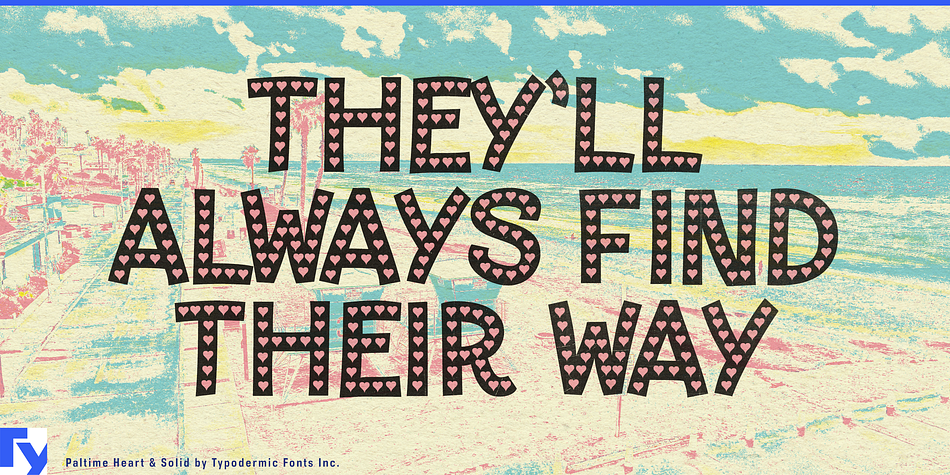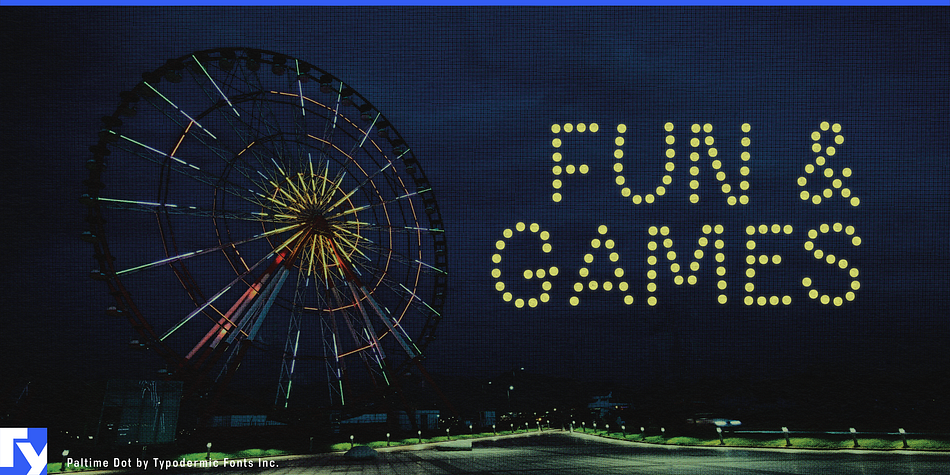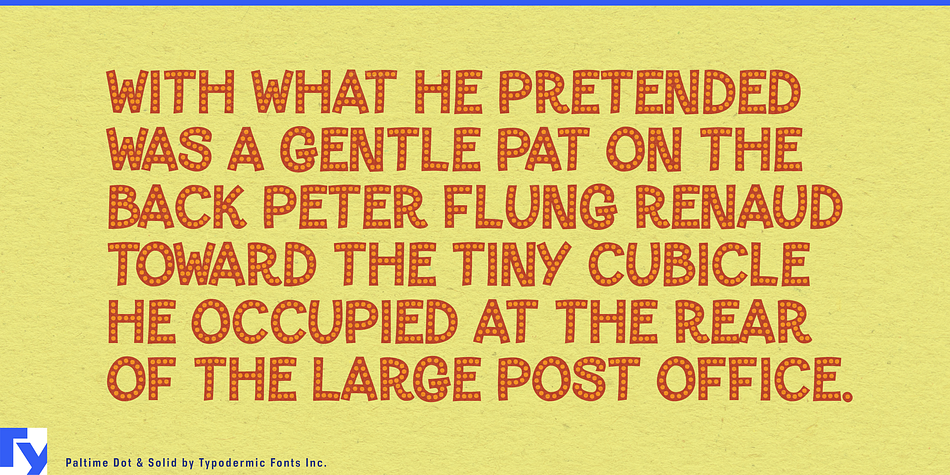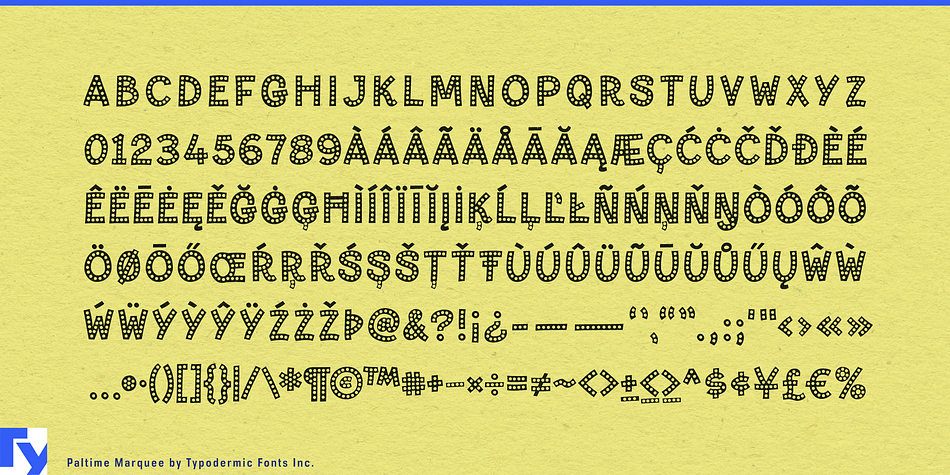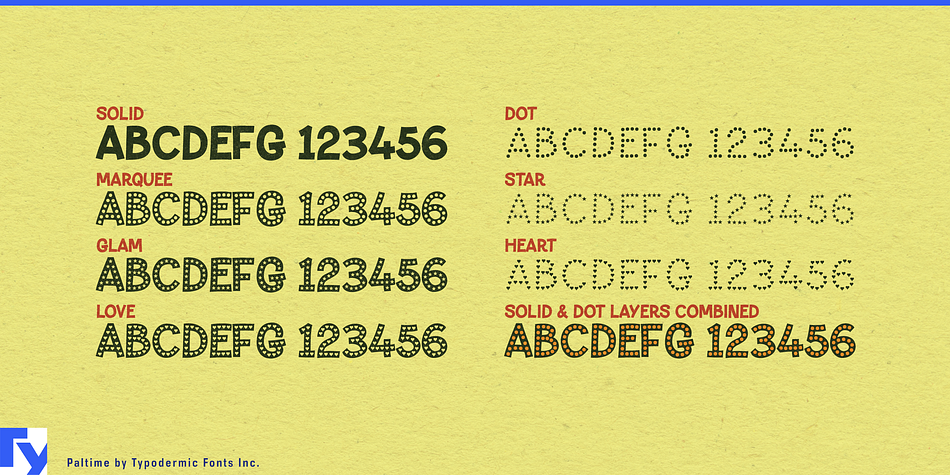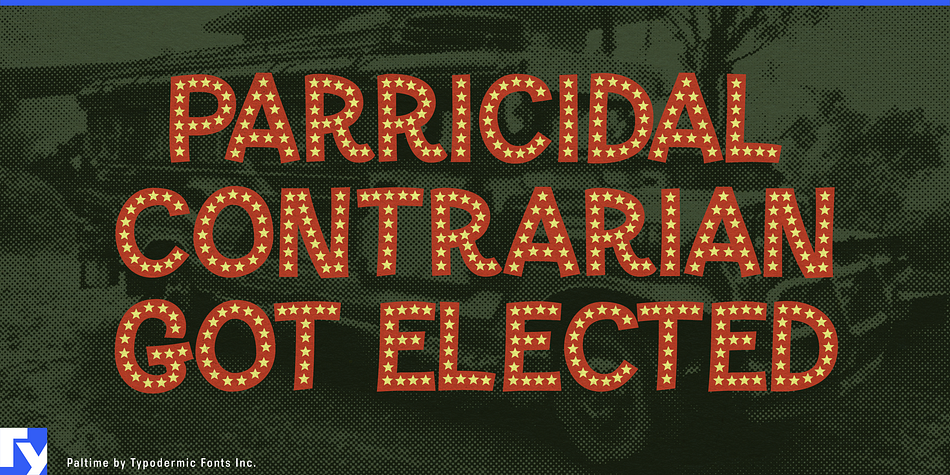
Paltime is a display font family. This typeface has seven styles and was published by Typodermic Fonts Inc.
Paltime is a casual, all-caps font that comes in: plain, dots, hearts & stars.